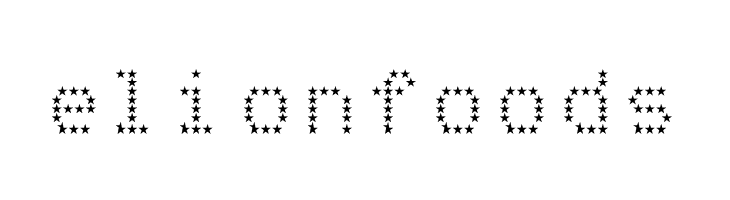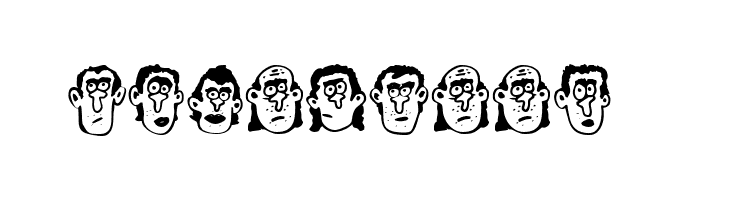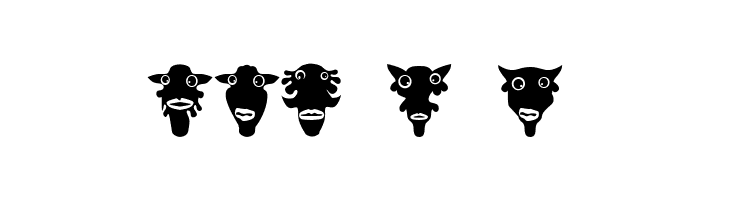
A pictogram font themed around billiards and pool.
A decorative font composed of star-shaped characters, perfect for creative projects.
Hand-drawn dog heads form each character in a decorative style.
A decorative dingbat font of English Bulldog illustrations and emblems.
A playful, hand-drawn display font made of cartoon faces.
Decorative font with manga/anime character illustrations for each glyph.
A novelty font composed of illustrated cow faces for each character.
A whimsical and playful font with cartoonish creature-like characters.
A Resident Evil-themed pictorial font with character and logo silhouettes.